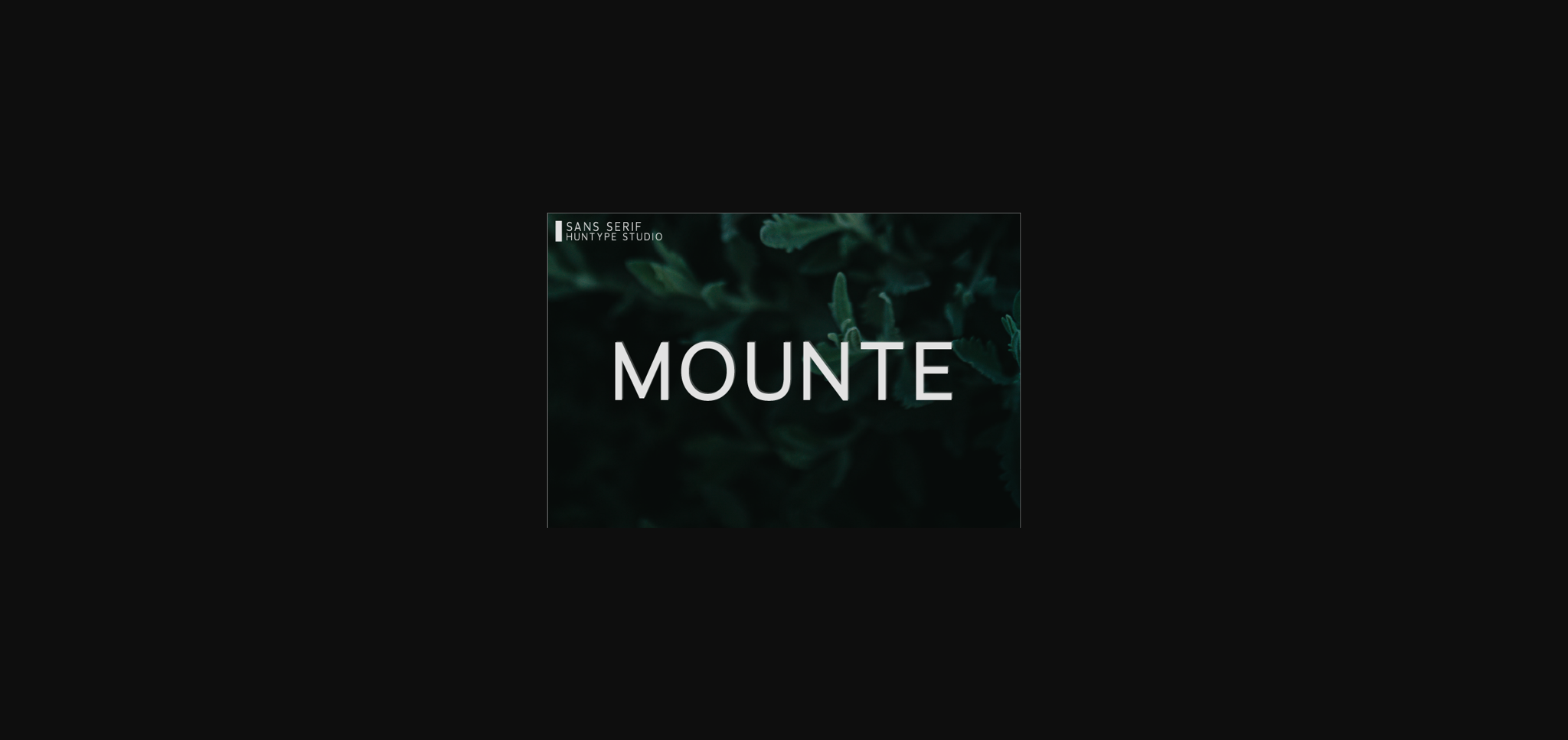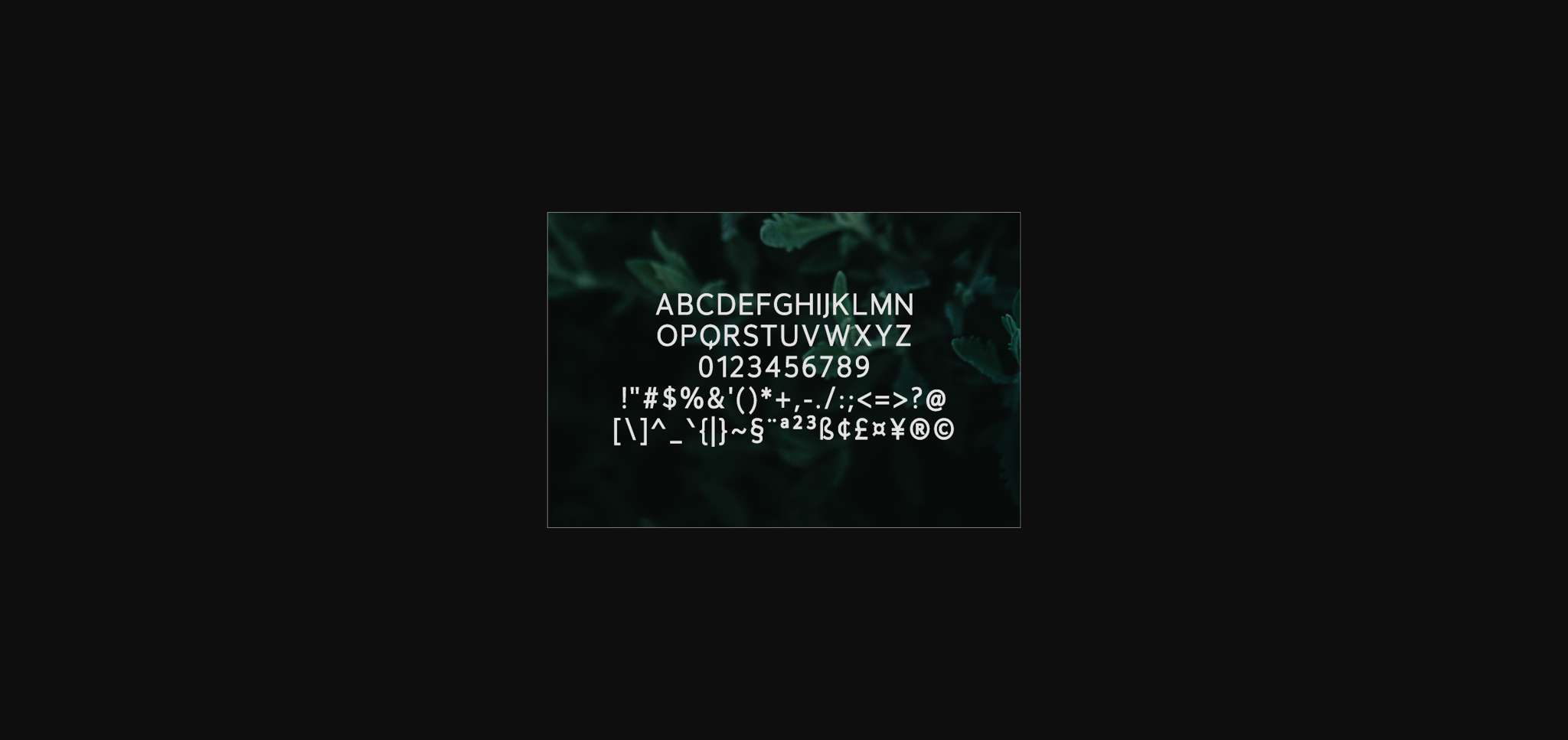
About Mounte Font
Mounte is an elegant sans serif font with an undeniably clean feel. With its neat and beautiful arrangement of letters, this typeface will look outstanding in both formal and non-formal designs.